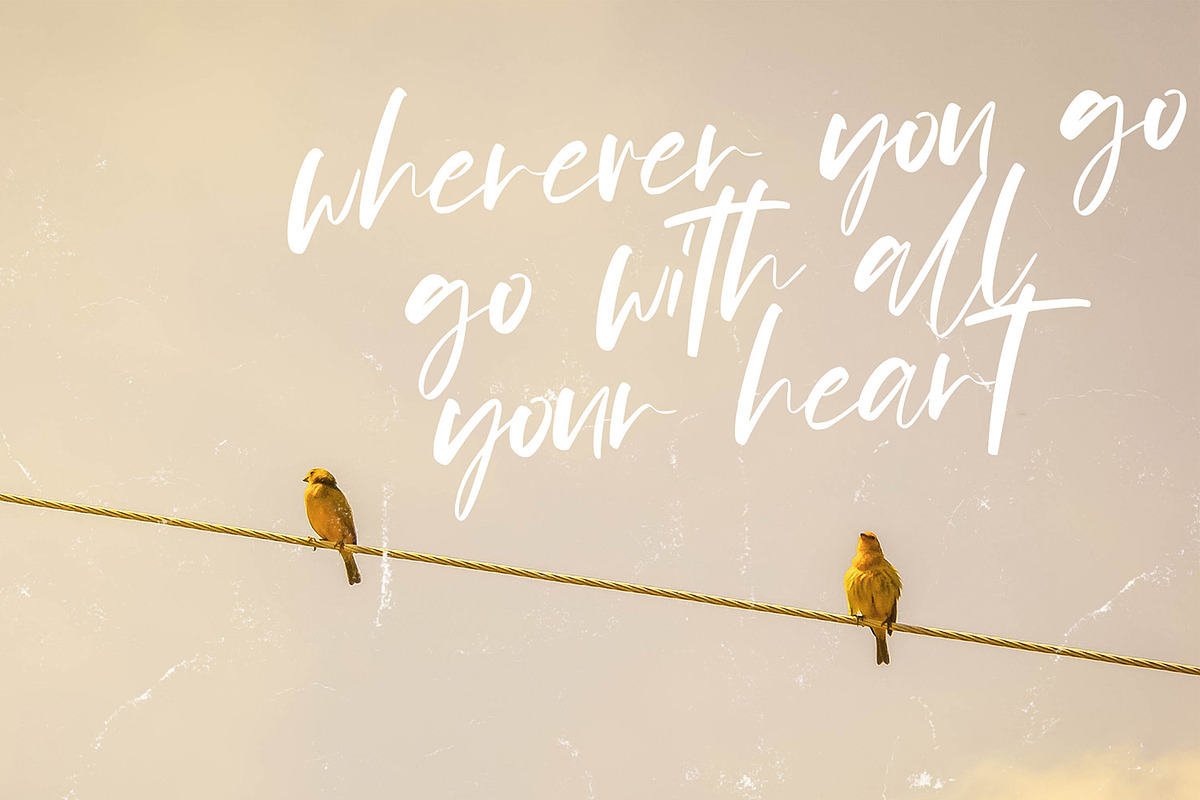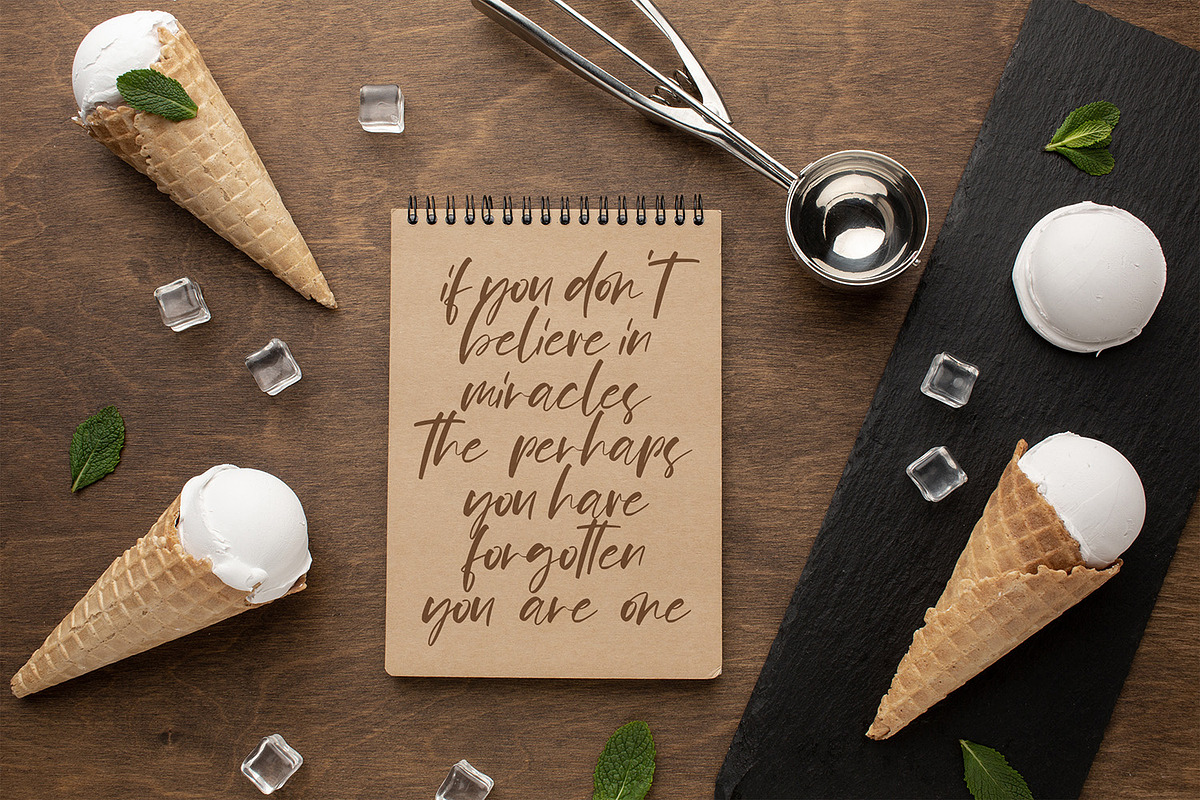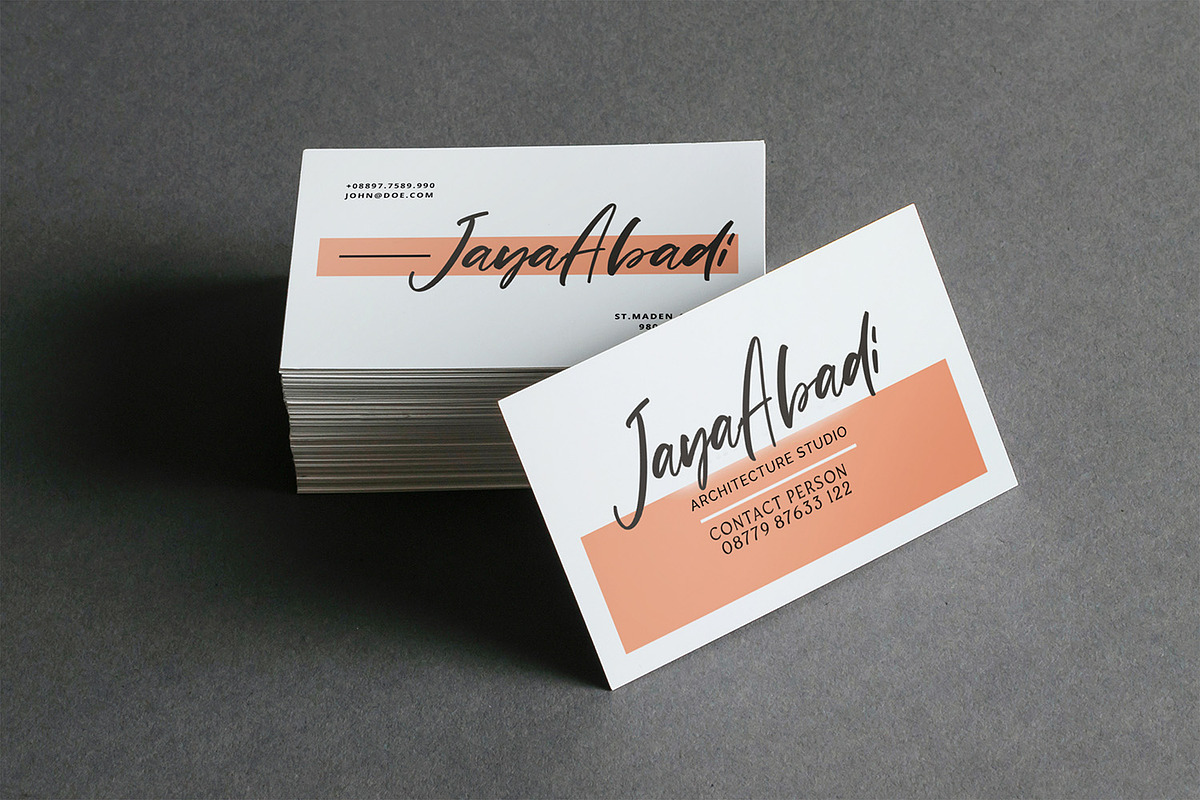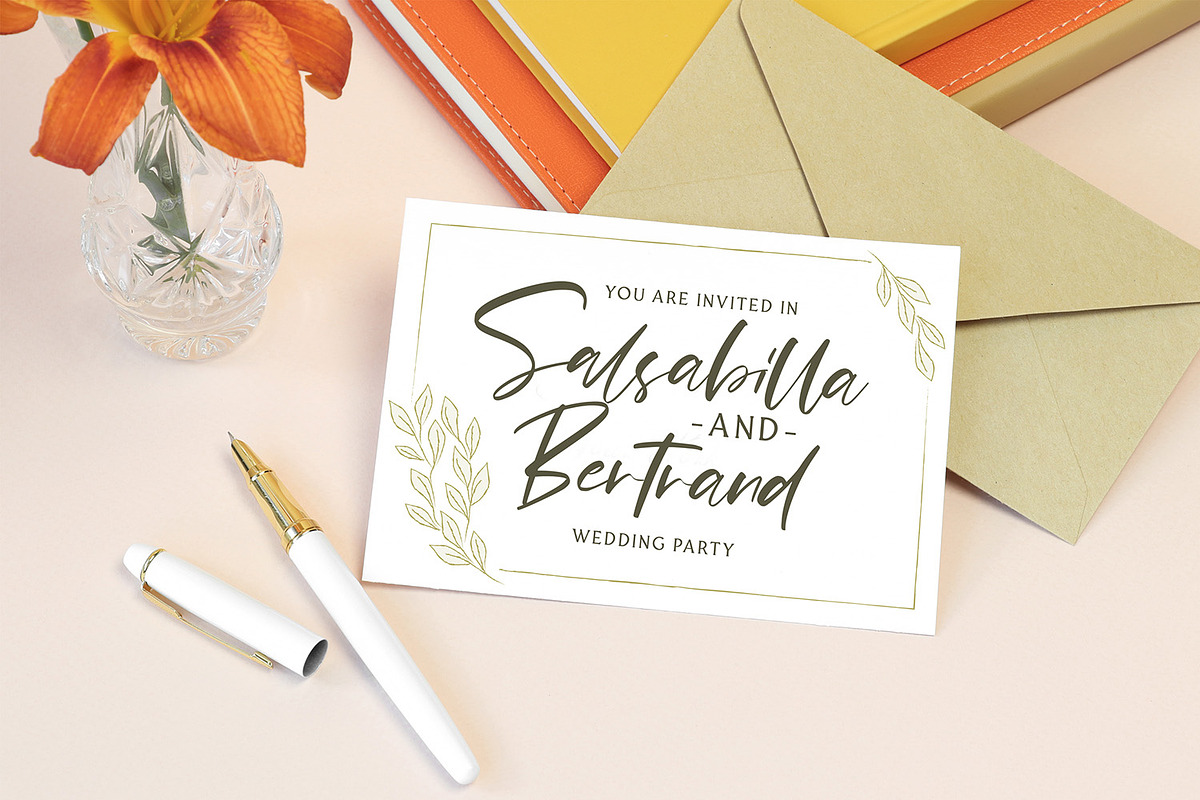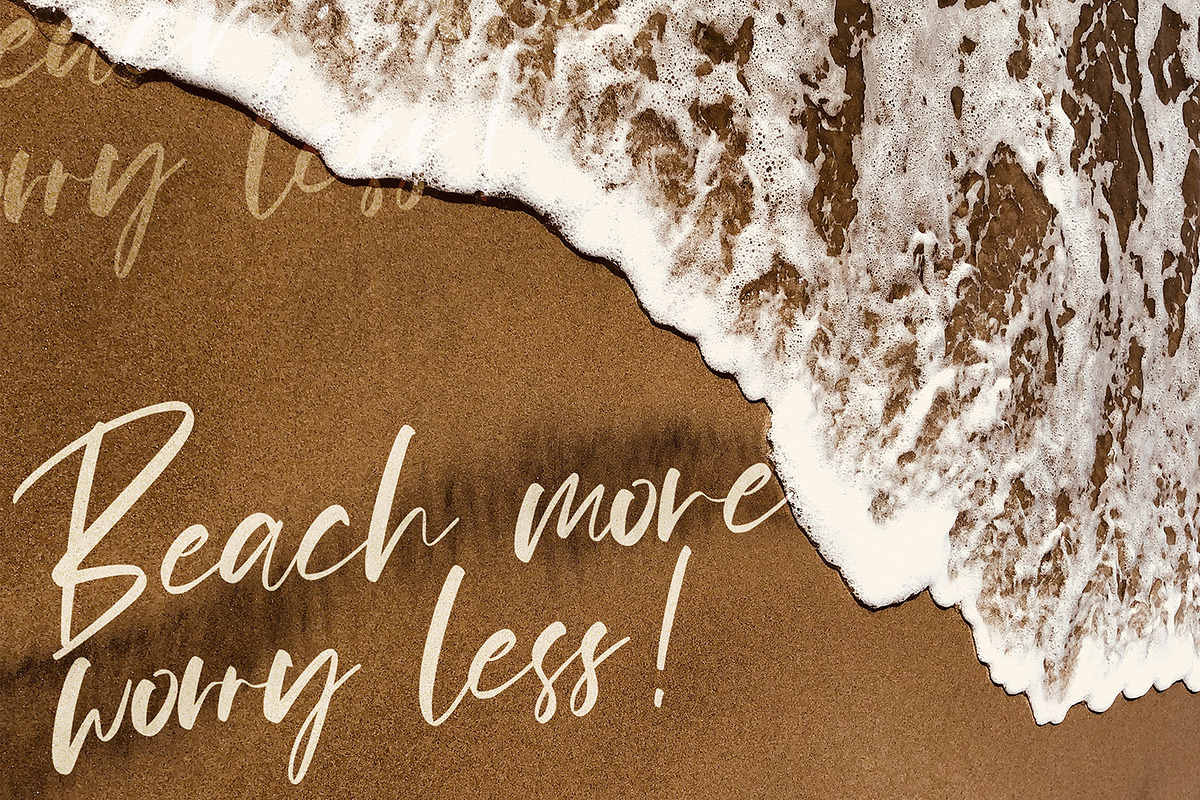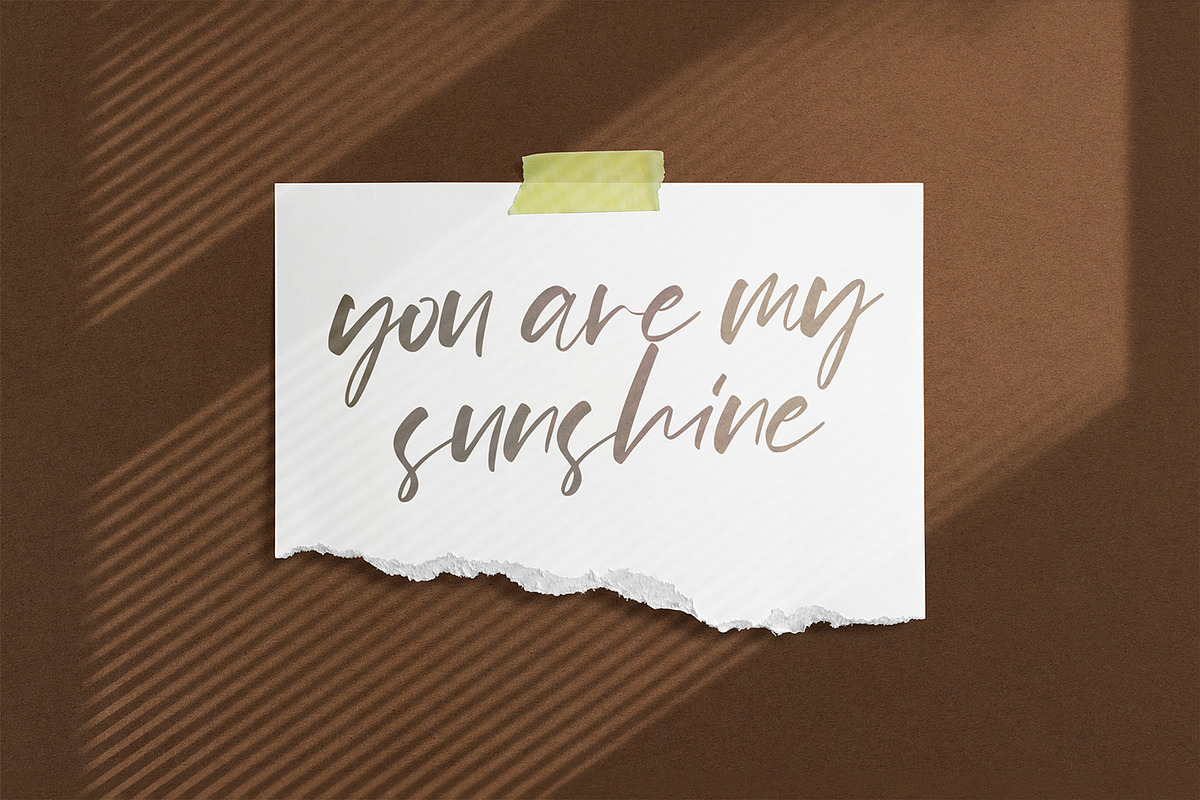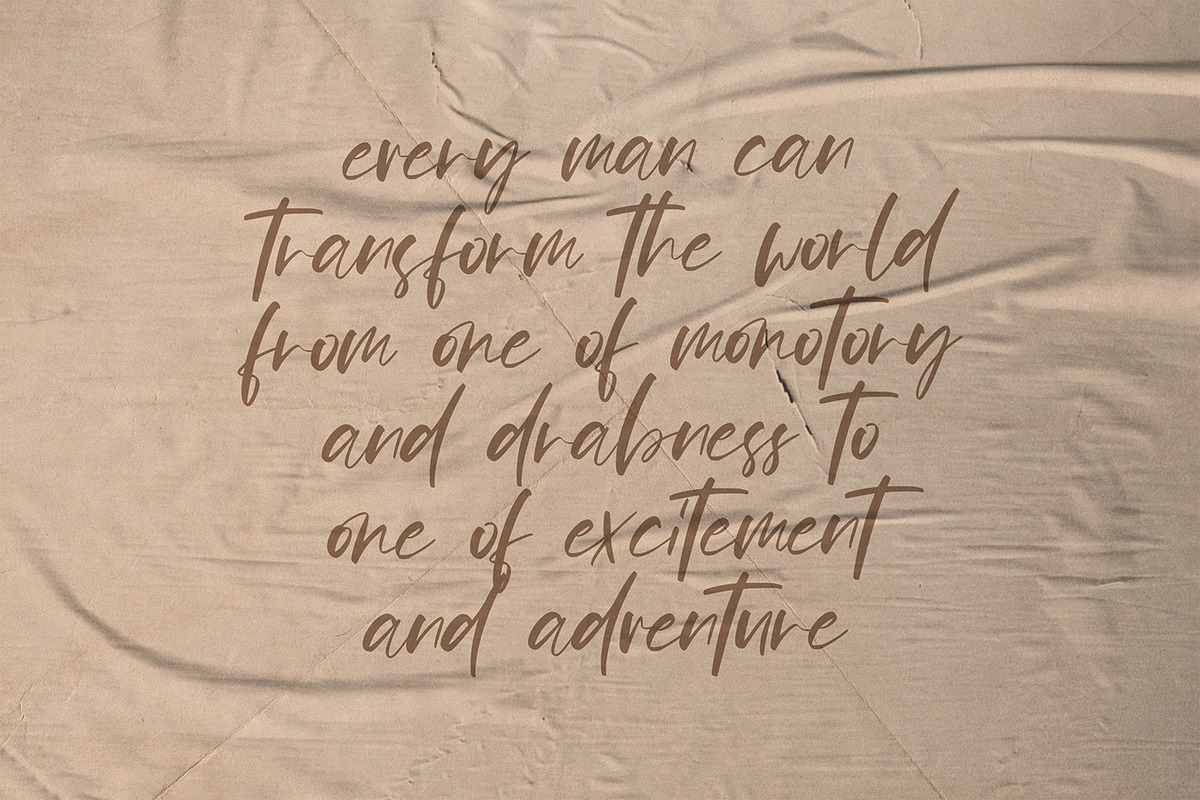
Pejuang Cinta - Handwritten Font
Introducing Pejuang Cinta - Handwritten Font
Pejuang Cinta is a Script Font with Handwritten Style. The Pejuang Cinta font made with digital brush pen strokes that making this font look authentic. This font is perfect for fashion brand, wedding invitation, business card, logo brand, signature, and then calligraphy.
- This Font contains Elegant, Modern, Stylish and has a Unique Concept.
Why Pejuang Cinta - Handwritten Font is worth a look
Pejuang Cinta - Handwritten Font by StringLabs fits naturally into Branding, posters, packaging, typography.